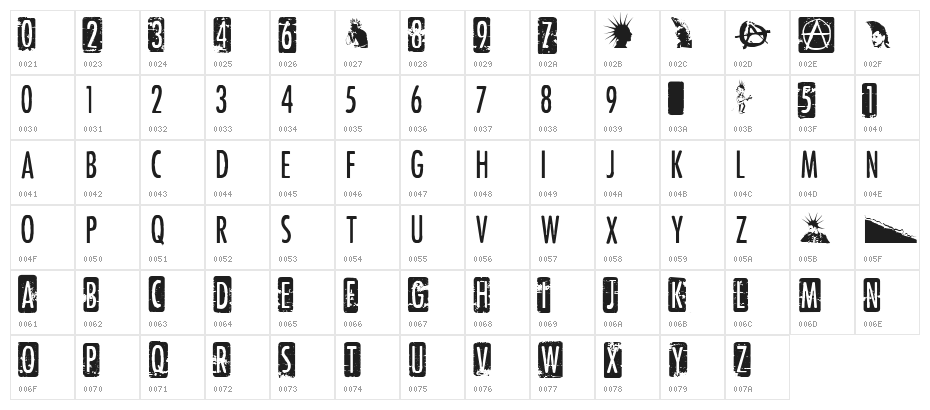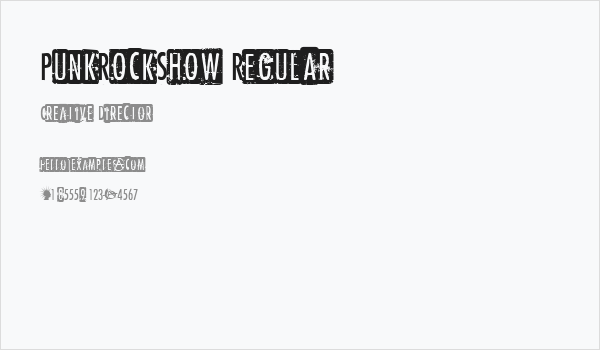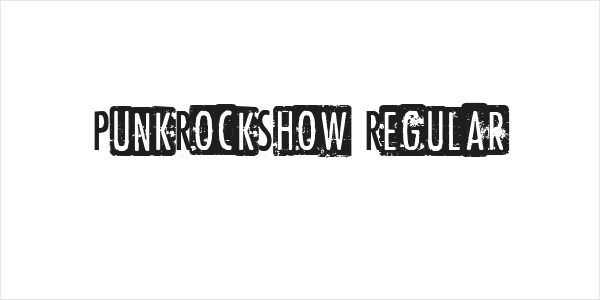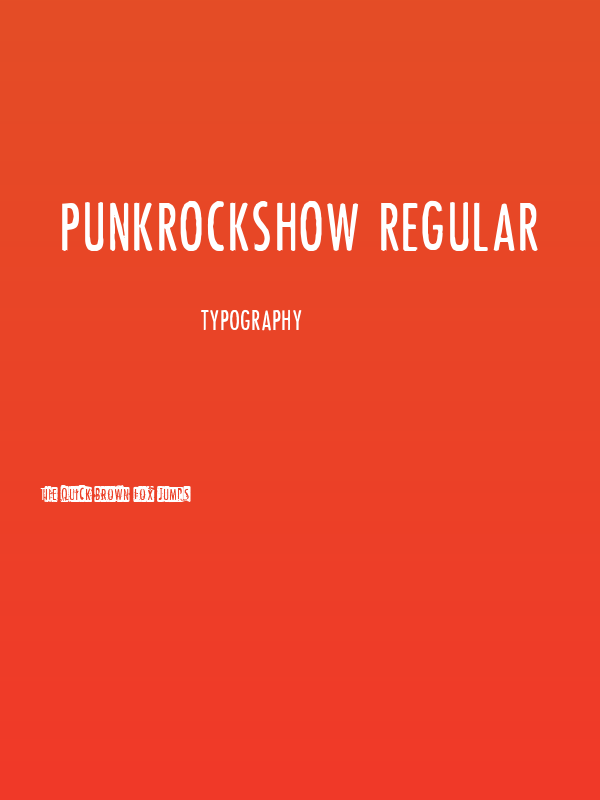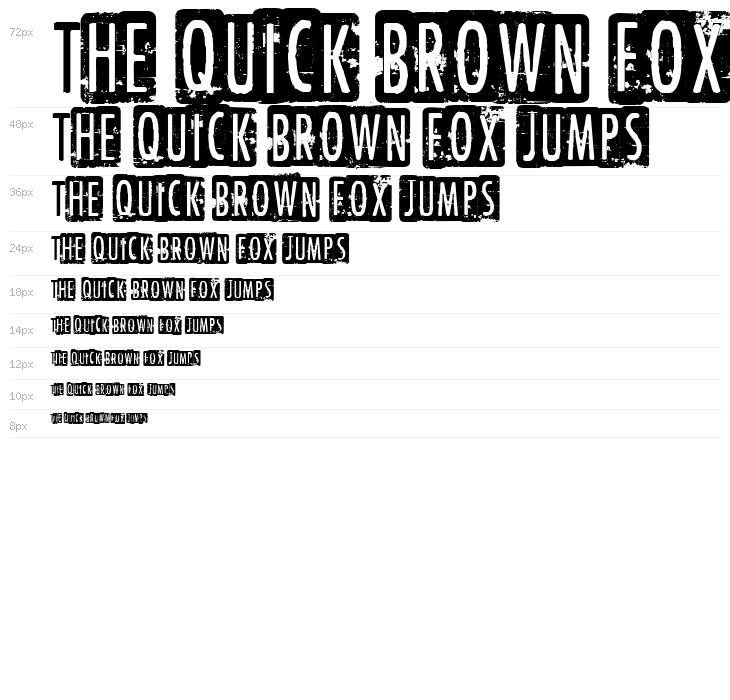
PunkRockShow Regular Font
This font exudes a rebellious and gritty aesthetic, reminiscent of the punk rock era. The characters are bold and slightly distressed, giving them a worn, vintage look. The uppercase letters are tall and narrow, while the lowercase letters maintain a consistent style. Numbers and special characters follow the same rugged design, adding to the overall edgy feel. The texture within the letters suggests a rough, hand-crafted quality, making it ideal for projects that require a raw and authentic vibe.
Overall StyleVintage
Proposed ProjectsIdeal for music posters, album covers, streetwear branding, and edgy graphic designs.